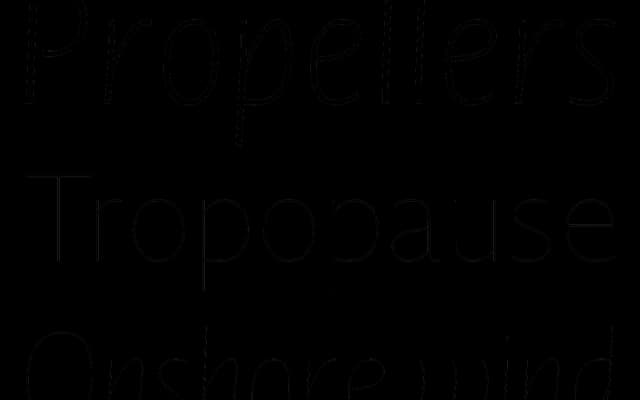
Novel Sans Hair
An ultra-thin hairline cut from the Novel Sans family by Atlas Fonts, designed for delicate typographic applications.
Novel Sans Hair sits at the extreme light end of the Novel Sans family, offering a hairline weight for settings where fine strokes and minimal presence are required. The humanist DNA of Novel Sans carries through, maintaining legibility and warmth even at extreme thinness. Suited to editorial, fashion and luxury contexts where restraint is the primary concern.